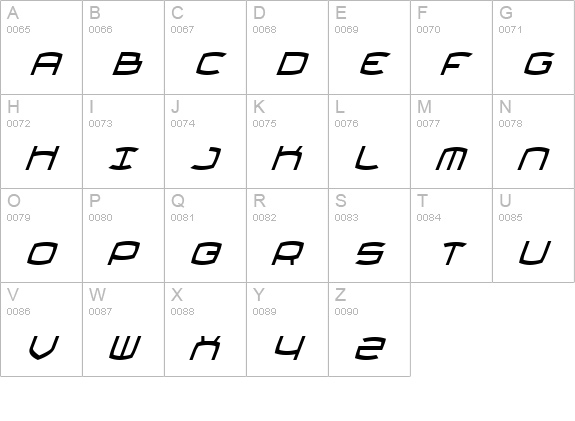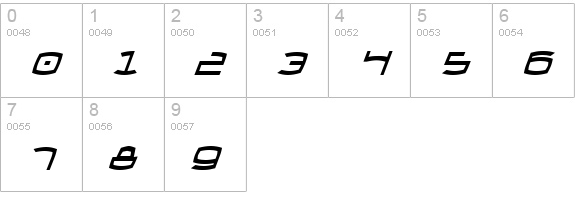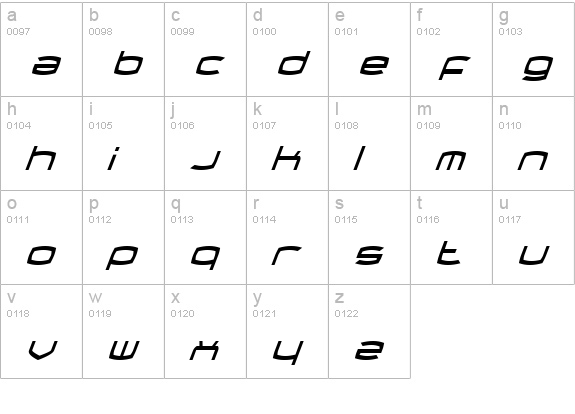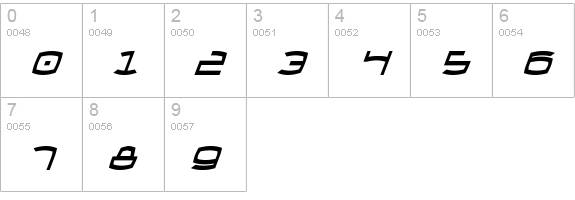
Thundergod Condensed Italic is a distinctive, condensed-width, italic variant in the Thundergod typeface family \xE2\x80\x94 well suited to design and typography projects.
Thundergod Condensed Italic is a striking and dynamic font that exudes power and energy. With its sleek and modern design, this typeface is perfect for adding a bold touch to any project. The italic style adds a sense of movement and flair, making it ideal for headlines, branding, and editorial design. What sets Thundergod Condensed Italic apart is not just its impressive appearance, but also the fact that it is available for free download at FontsMarket.com. This means that you can easily access and use this captivating font for personal and commercial projects without any cost. Embrace the electrifying energy of Thundergod Condensed Italic and make a statement with your designs today!